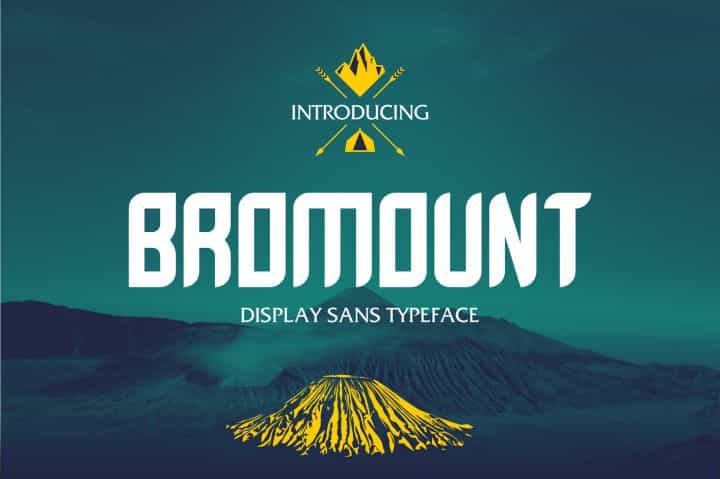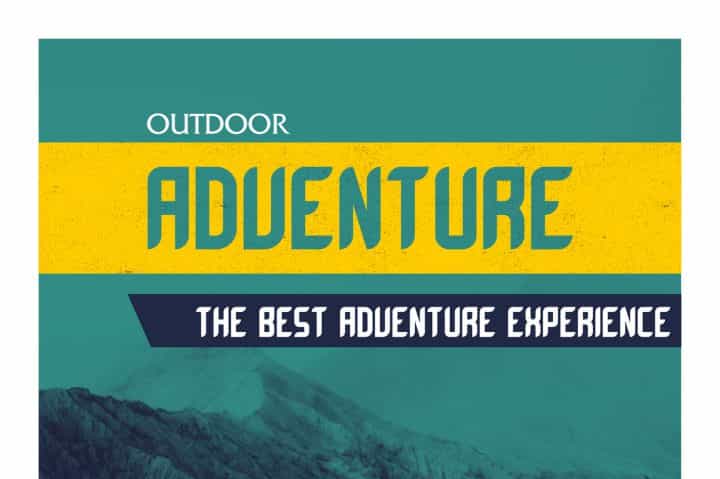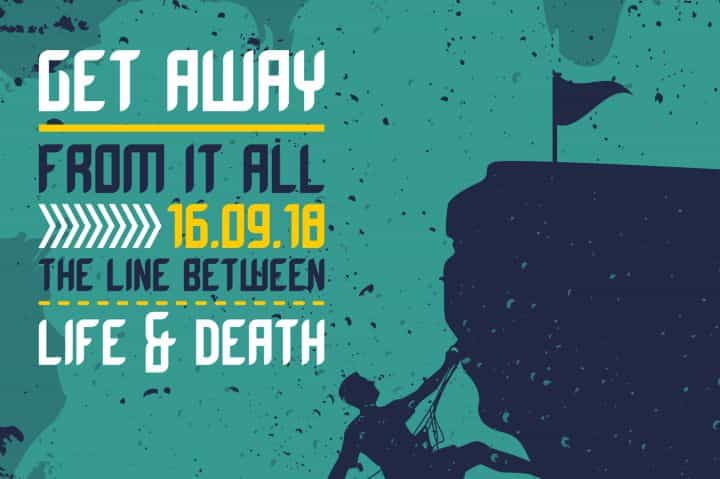
Discover Bromount Typeface, part of the Sans Serif Display collection—a versatile and unique font perfect for adding a personal touch to your projects. Download it for free and enjoy crafting designs with style, from invitations to social media posts. This font is available exclusively for personal use, giving you the freedom to create without limits. Unlock your creativity with Bromount Typeface today!
The New Display Font, Bromount! is here. It is made and distributed by Ojo Ngintype. Bromount is a monoline display sans font which is very appropriate for many projects, it can be used in the wide range of creative projects.